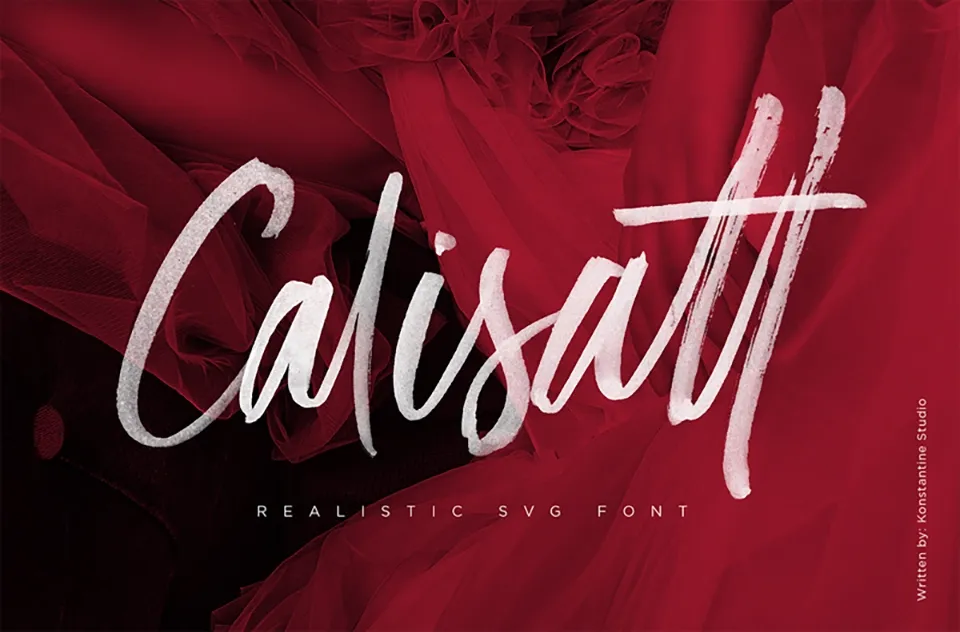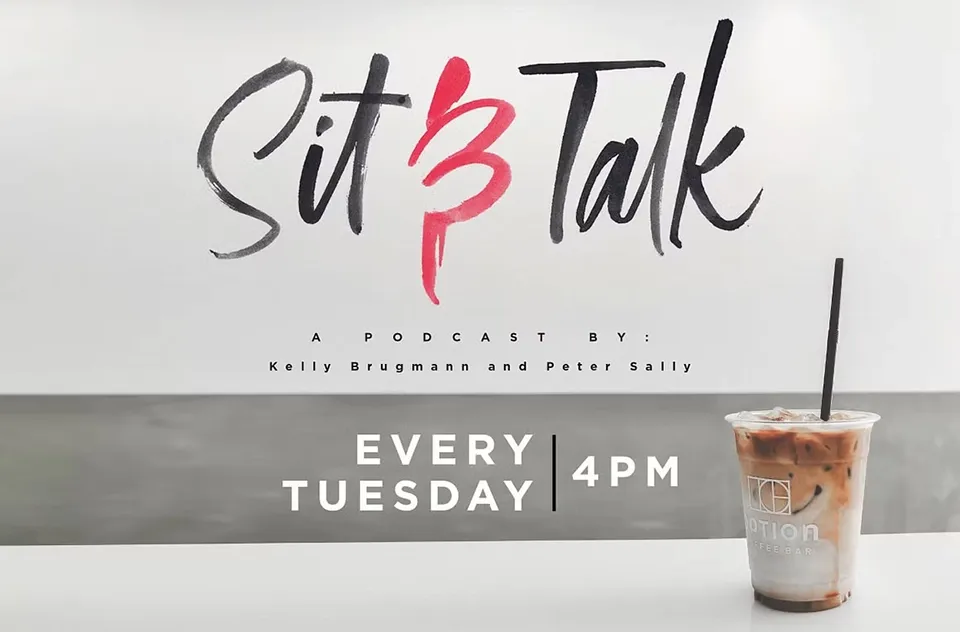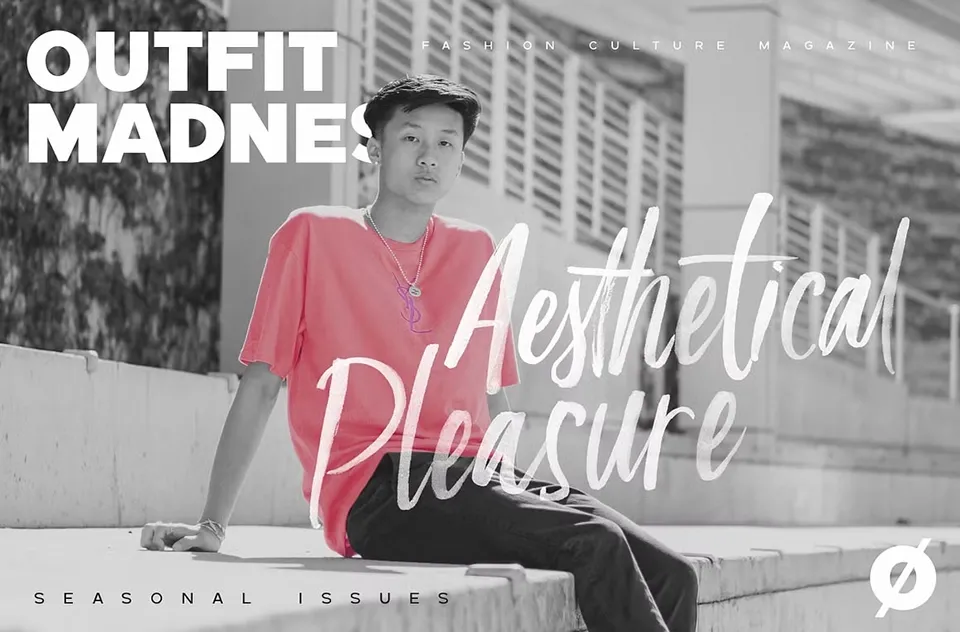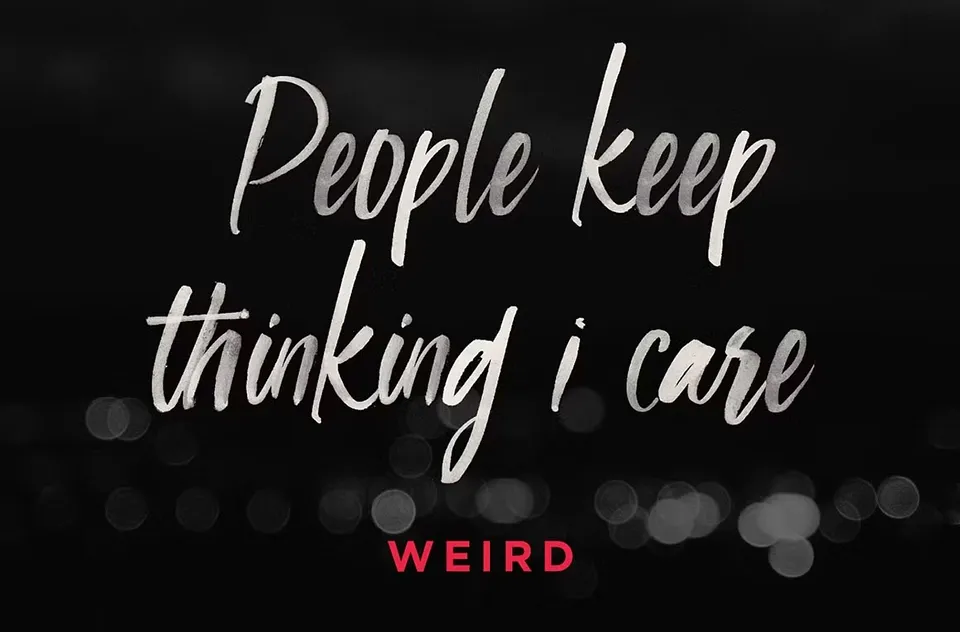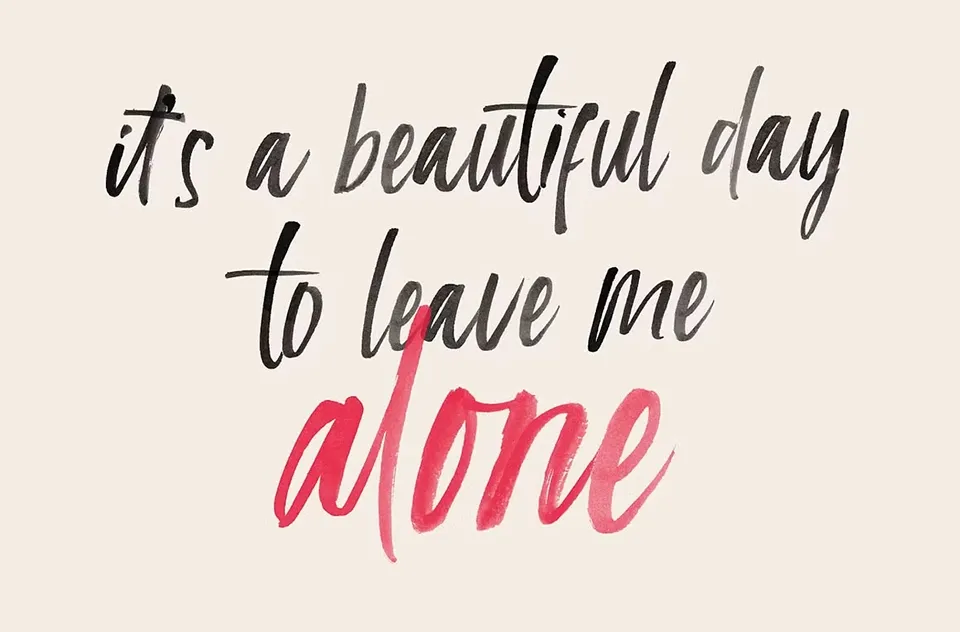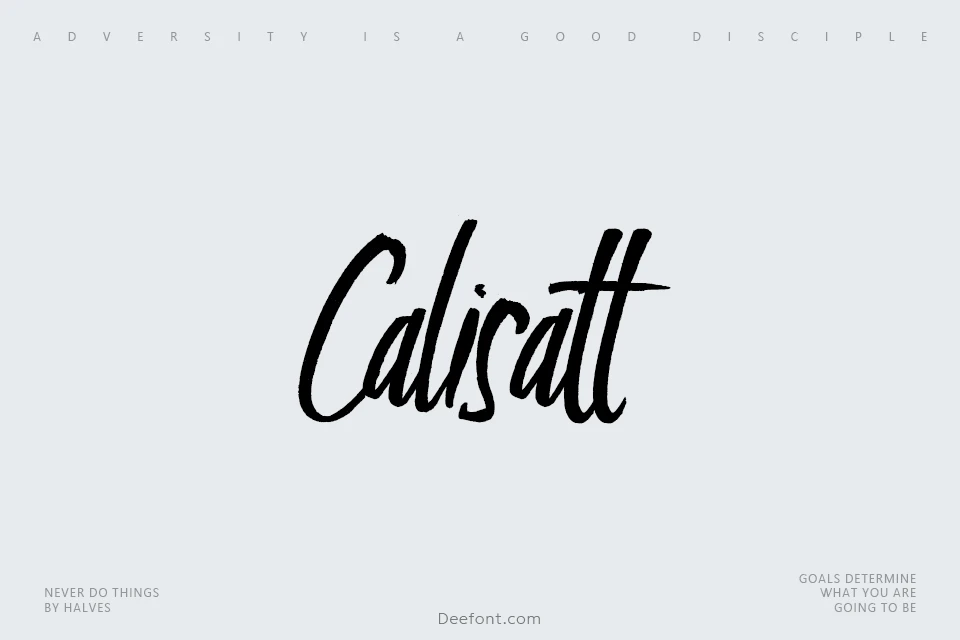
Calisatt Brush Font
Calisatt Brush Font is a fast stroke brush and ink SVG font, designed to deliver a realistic hand-painted effect. Available in both SVG and regular versions, it features a textured, expressive style with a contemporary flair. The font includes a variety of ligatures to enhance natural flow, making it ideal for branding, headlines, posters, and creative projects that require an authentic brush script look.